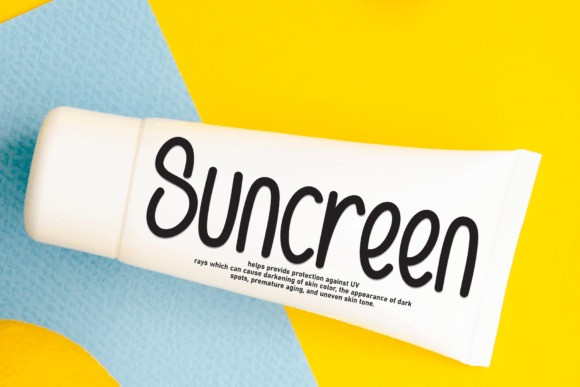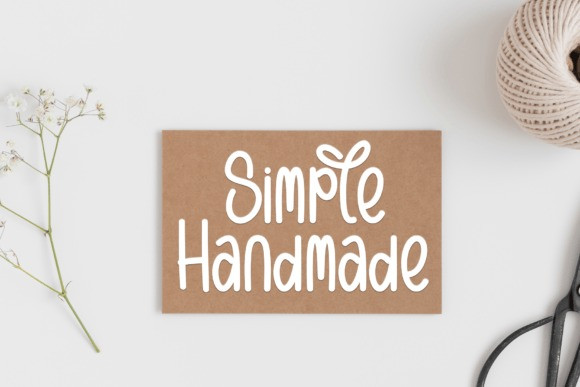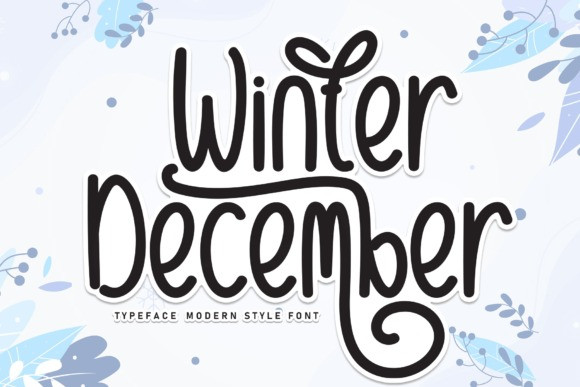
Winter December Font
Winter December Font is a sweet and friendly handwritten font. Its natural and unique style makes it incredibly fitting to a large pool of designs. The only limit is your imagination!